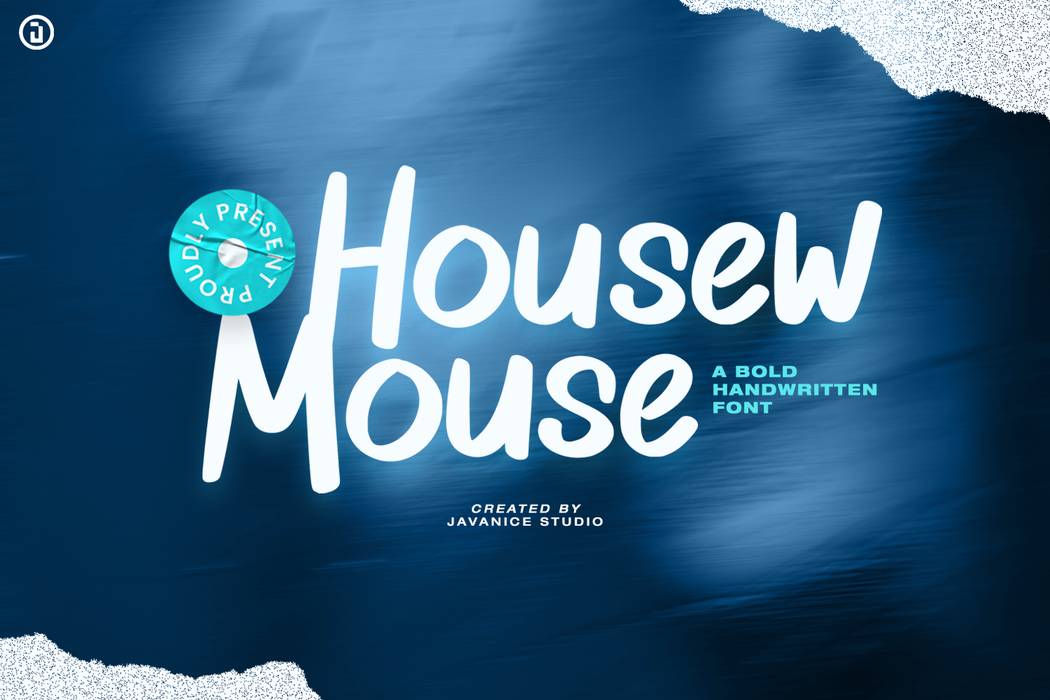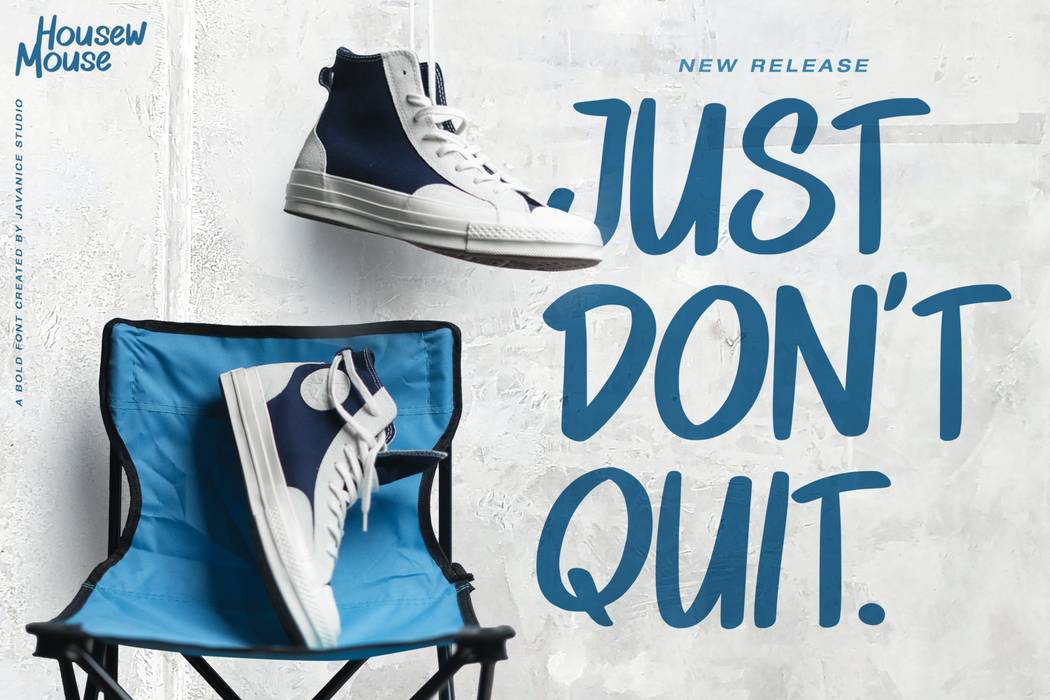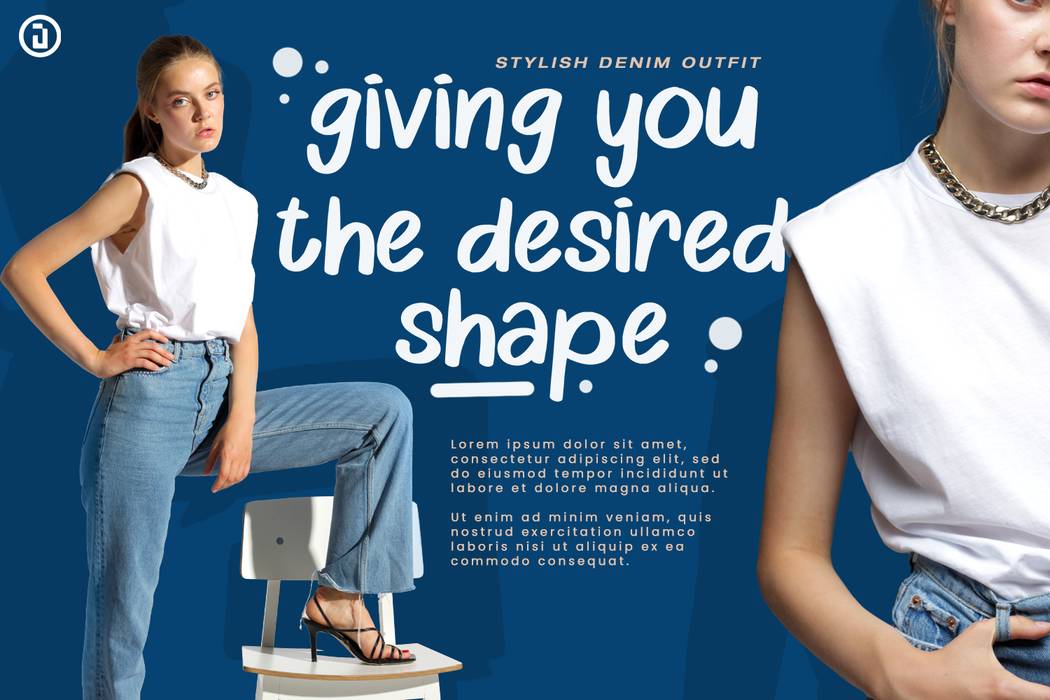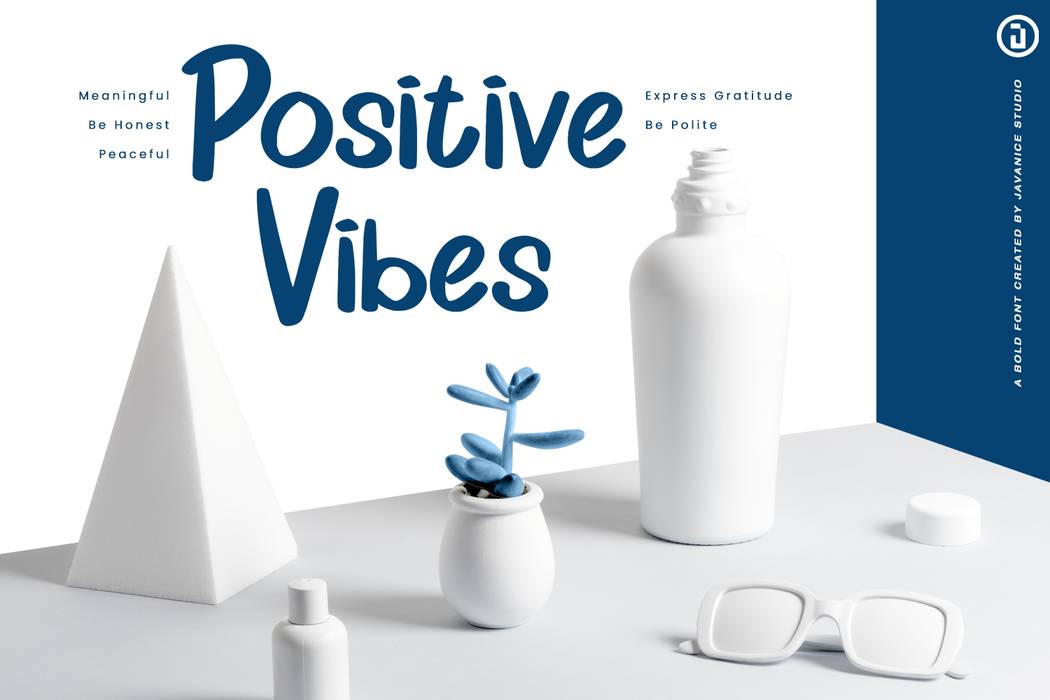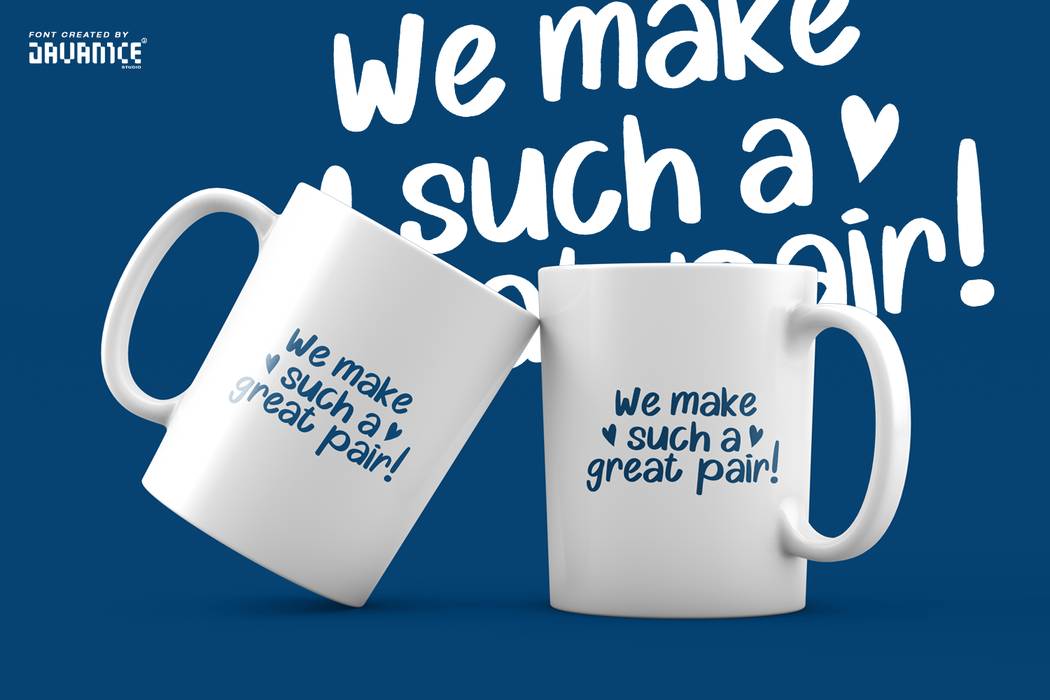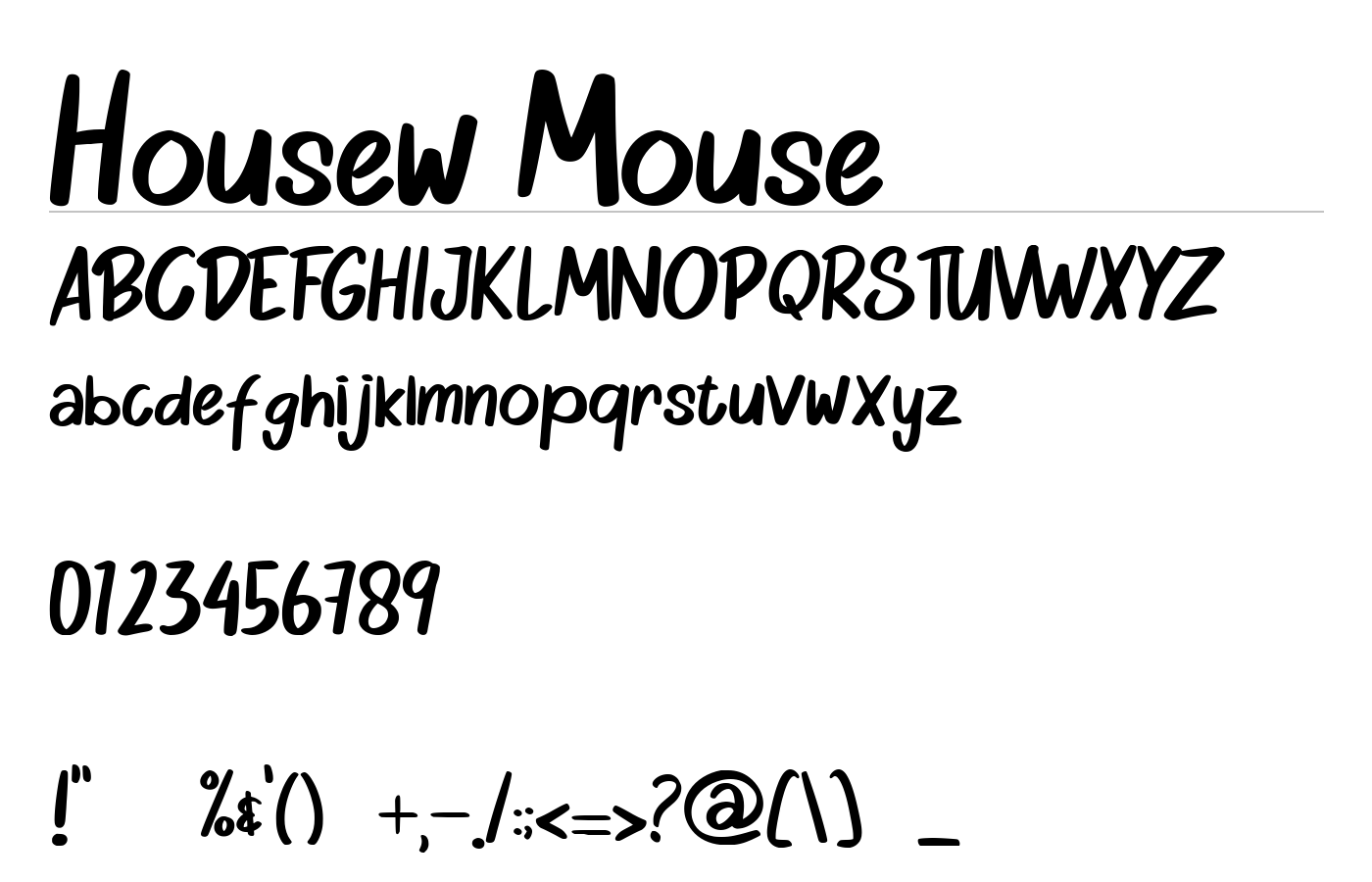
Housew Mouse is a playful, casual sans serif font that mimics a friendly, hand-drawn style with smooth, rounded strokes and moderate contrast. It features lively letterforms with a slight slant, a tall x-height, and informal shapes, making it perfect for fun, approachable designs like children’s books, cartoons, and casual branding. Its warm personality and readability shine in headlines and display uses where a creative, cheerful vibe is desired.
Housew Mouse Font
About Housew Mouse Font
| Font family | Housew Mouse Font |
| Designer | JAVANICE STUDIO. |